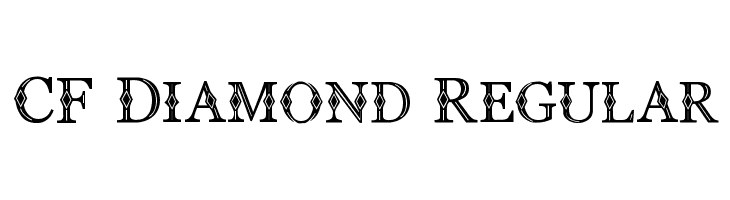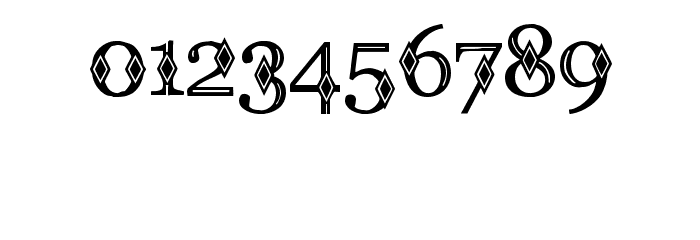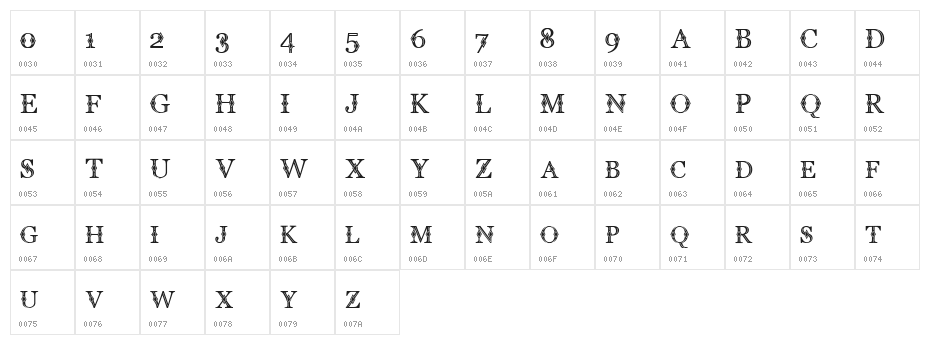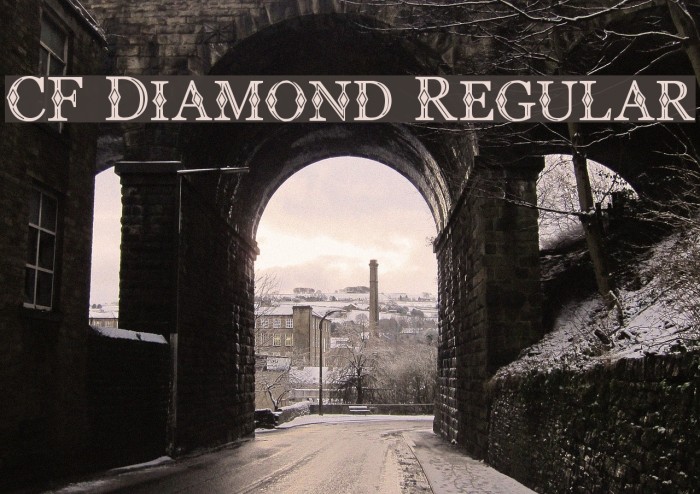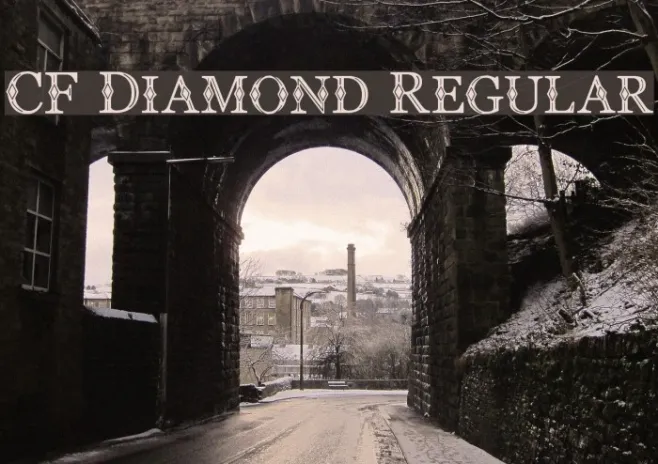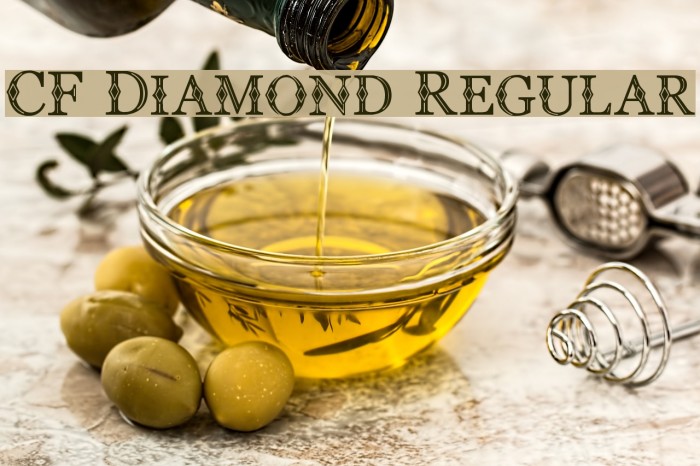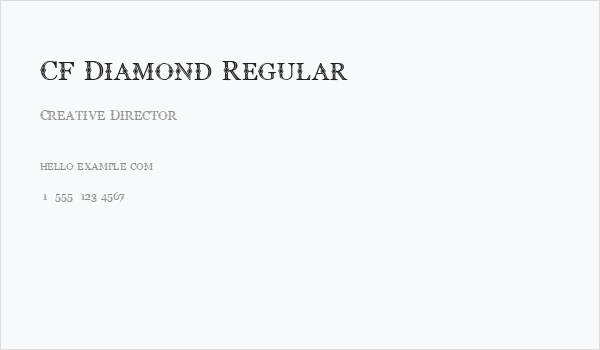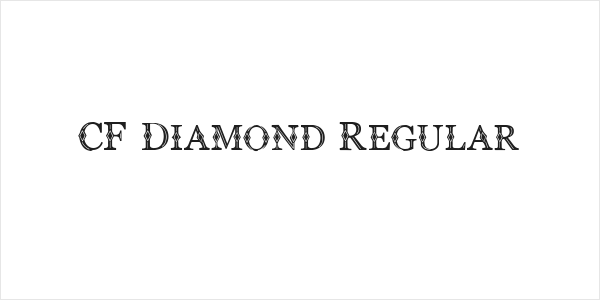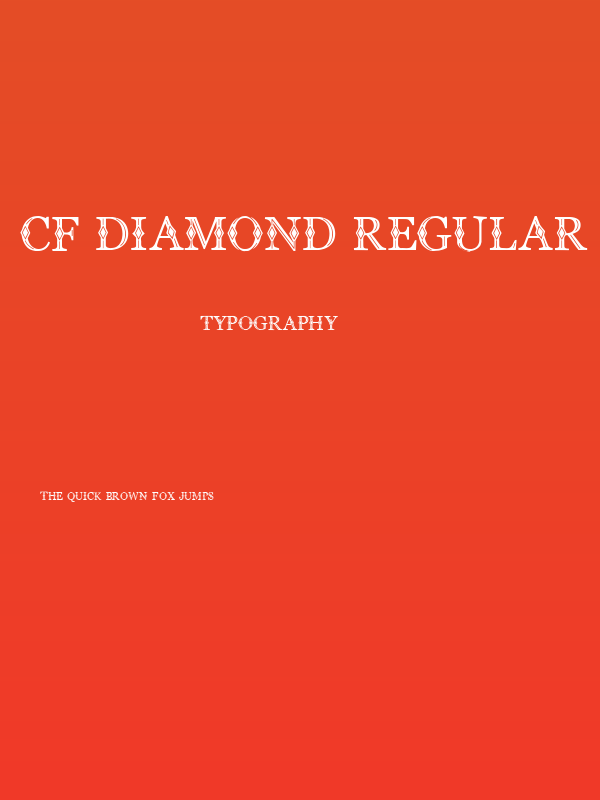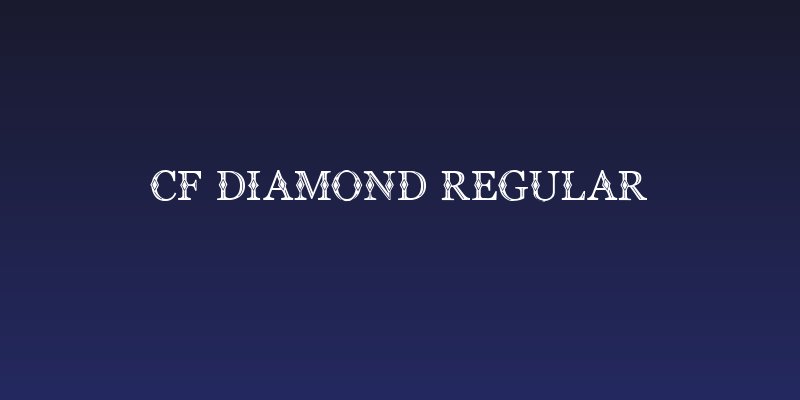
CF Diamond Regular Font
CF Diamond Regular Description
This font features a unique and decorative style with intricate diamond-shaped cutouts within each character. The uppercase letters are bold and striking, with sharp serifs and a distinct geometric flair that adds a touch of elegance and sophistication. The numbers follow the same decorative pattern, making them stand out with their artistic design. This font is ideal for projects that require a bold statement and a touch of creativity, such as branding, headlines, and artistic designs. The overall appearance is both modern and vintage, combining classic serif elements with a contemporary twist.
| Overall Style | Modern, Vintage |
| Use Case | Headlines, Logos, Artistic Designs |
| Proposed Projects | Ideal for branding, headlines, artistic designs, and any project needing a bold statement. |